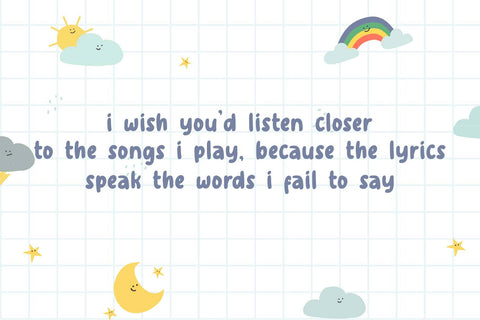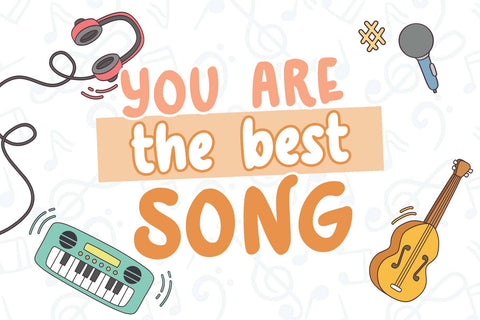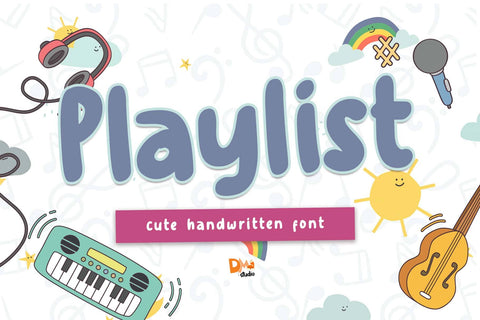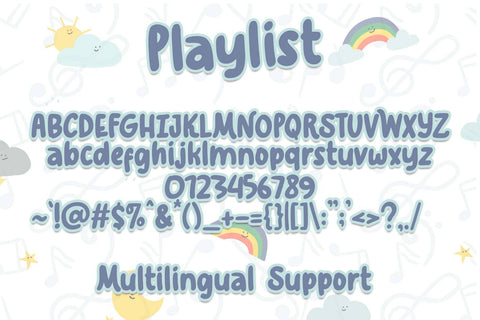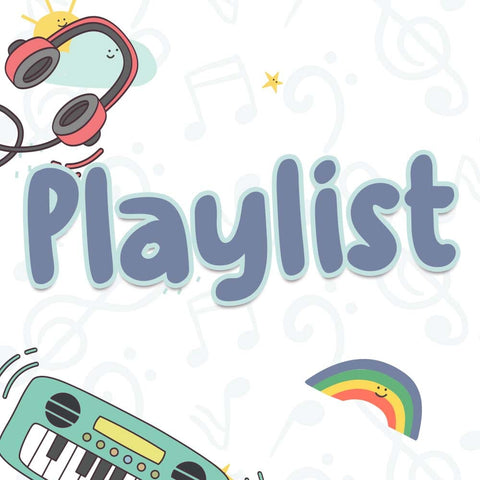
Playlist Font
Playlist Font is a sleek and modern typeface crafted to bring a harmonious and contemporary vibe to your design projects. With its clean lines and versatile style, this font is well-suited for a variety of applications, including branding, editorial design, and digital interfaces. Elevate your designs with the polished and sophisticated aesthetic of the Playlist Font.
- Sleek and Modern Design: The Playlist Font boasts a sleek and modern design, characterized by clean lines and a contemporary aesthetic.
- Versatility in Application: Perfect for a wide range of design projects, from brand identity to editorial layouts, providing a polished and sophisticated look.
- Uppercase and Lowercase Letters: The font includes both uppercase and lowercase letters, providing flexibility for creative typography.
- Punctuation and Symbols: A comprehensive set of punctuation marks, numerals, and symbols for consistency and ease of use.